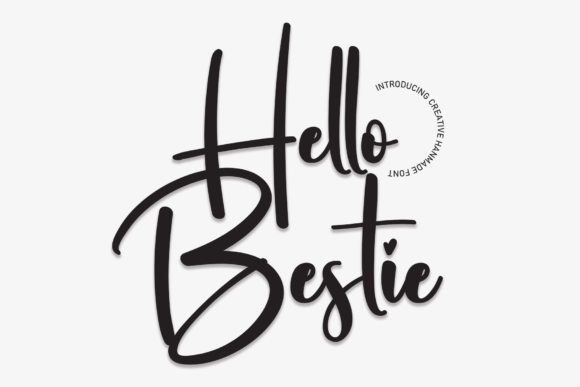
About Hello Bestie Font
“Hello Bestie’s” latest style letters offer a charming and versatile handwritten font that is suitable for a wide range of design applications. Whether you’re working on wall displays, wedding invitations, social media post logos, advertisements, product packaging, product designs, labels, photography watermarks, invitations, stationery, or any creative project that benefits from a handwritten touch, “Hello Bestie’s” has you covered.
The appeal of “Hello Bestie’s” lies in its ability to convey a sense of warmth and personalization. Each character is thoughtfully designed to exude a handwritten and friendly vibe, making it an ideal choice for projects where you want to create a visually appealing and engaging impression. This font allows you to infuse a sense of creativity and authenticity into your content.
For branding, product designs, promotional materials, and various design applications, “Hello Bestie’s” provides the creative freedom to make your projects stand out. Its handwritten style can enhance the visual appeal of your designs and effectively communicate your message to your audience.
In summary, “Hello Bestie’s” latest style letters are a valuable font choice that brings a personal and creative touch to your projects. Its handwritten and friendly script style makes it suitable for a variety of applications, and its ability to convey warmth and authenticity sets it apart. With “Hello Bestie’s” in your font collection, your design projects will exude a sense of friendliness and creativity that leaves a lasting impression.